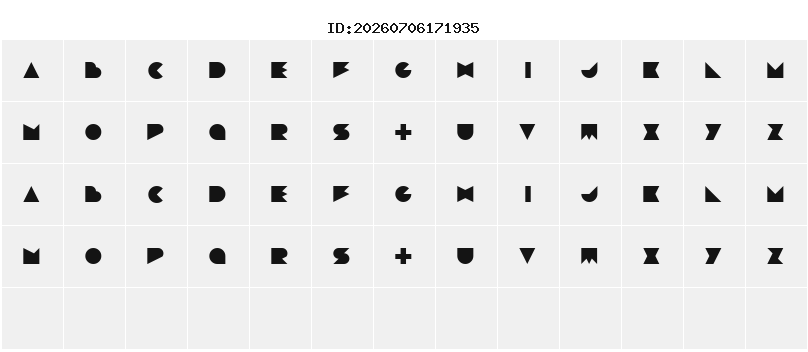
• Font Name: Devlose
• Full Font Name: Devlose
• Designer: jessy naudin
• Manufacturer: jessy naudin
About Devlose.ttf
Devlose.ttf is a modern, elegant sans-serif font designed for ultimate readability and visual harmony. Perfect for branding, headlines, web design, and print materials.